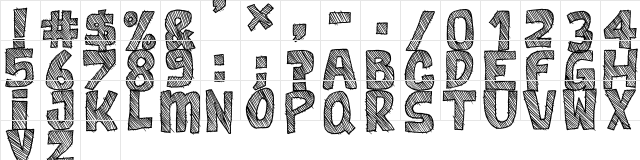
Best Prices Regular
Designer: IMAGEX
Best Prices is a composed and adaptable typeface that performs quietly and consistently across a wide range of design contexts.